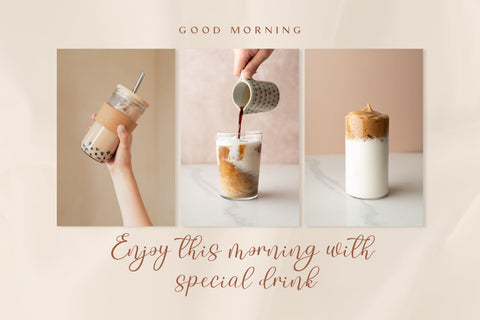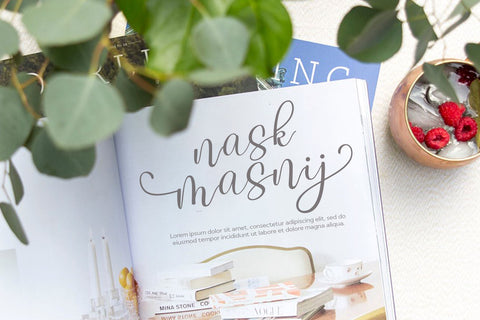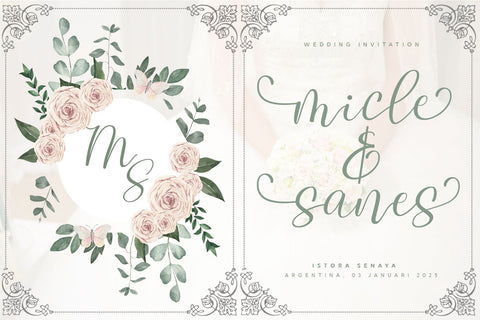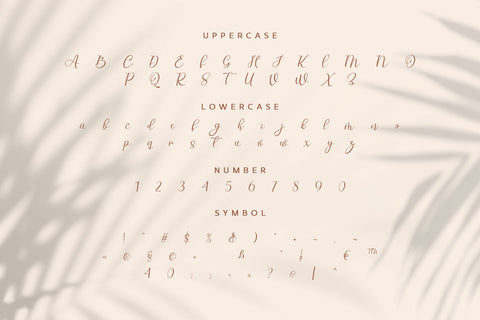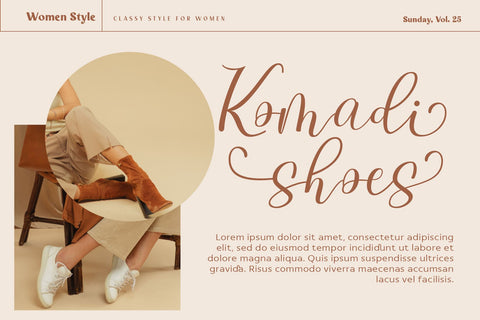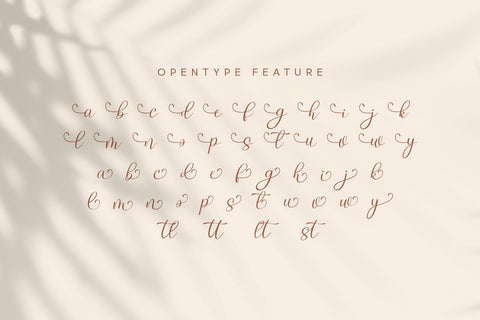
Jefnika
Jefnika feels equally gorgeous and delicate. It looks beautiful on wedding invitations, thank you cards, quotes, greeting cards, logos, business cards and every other design which needs a customized touch.